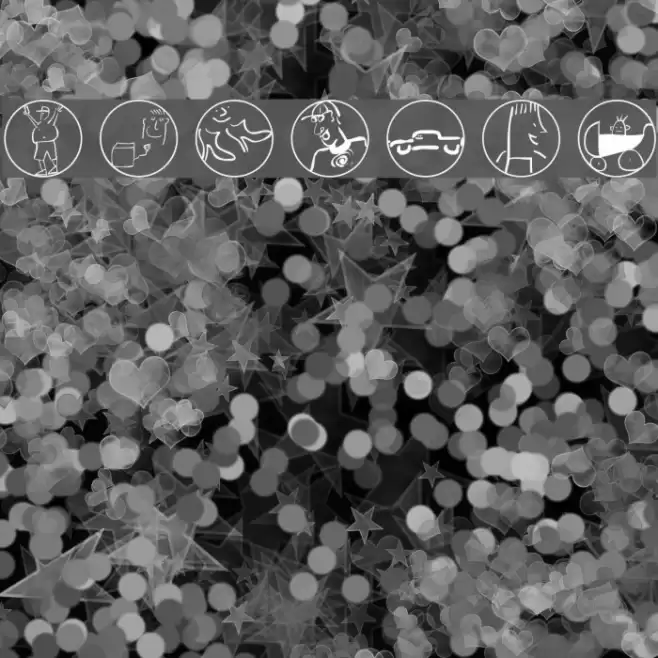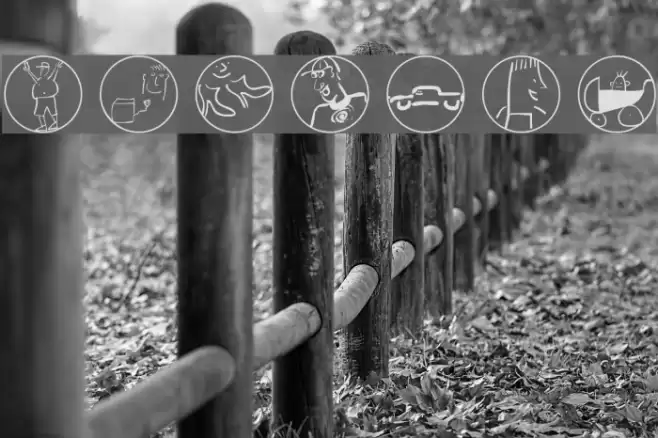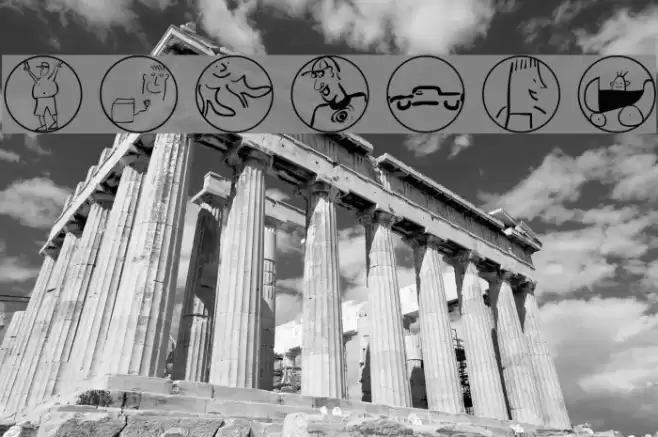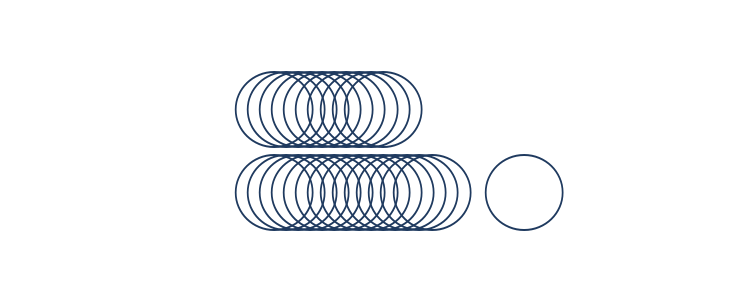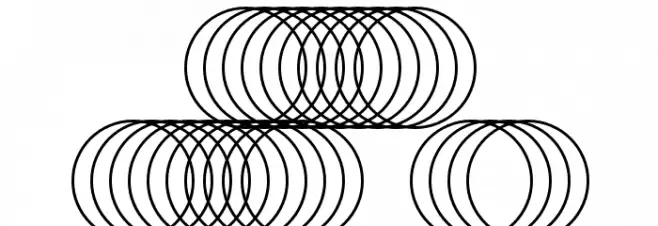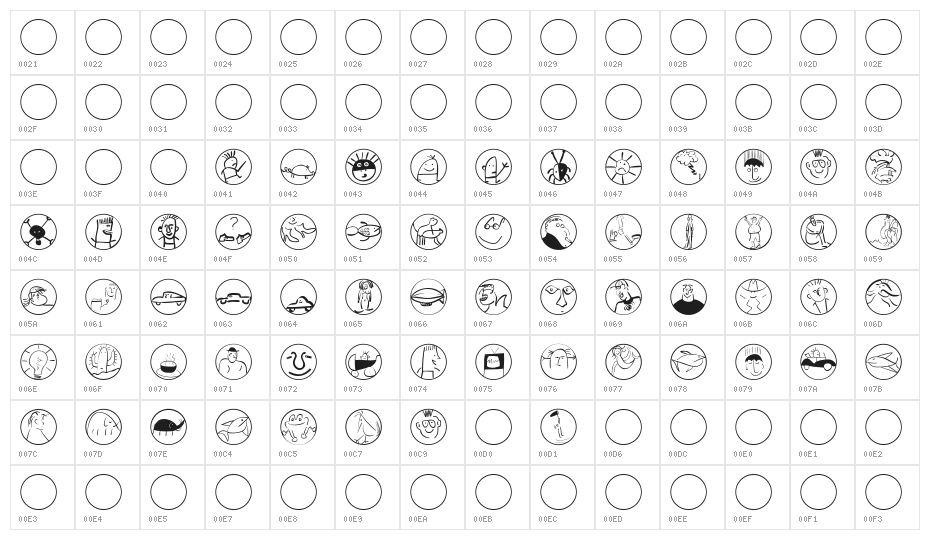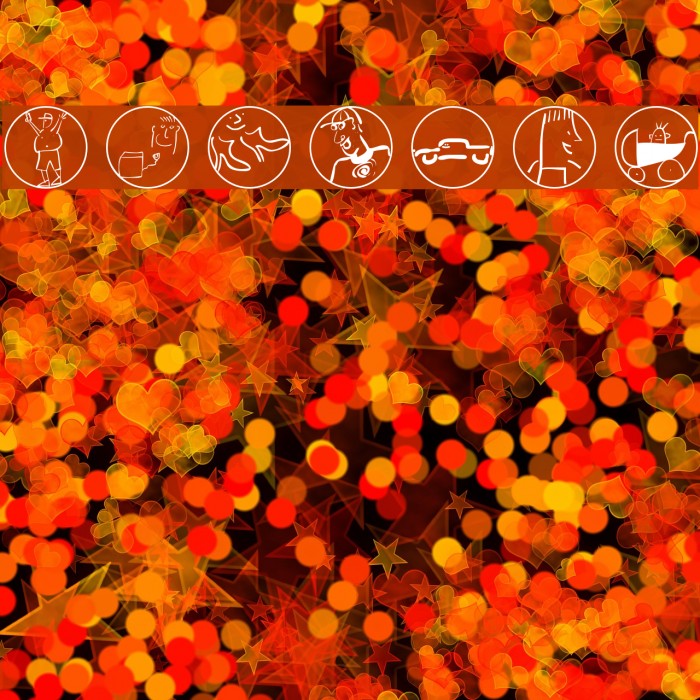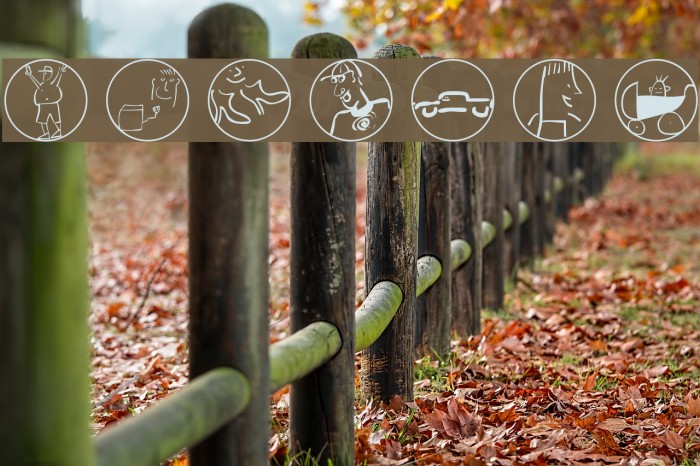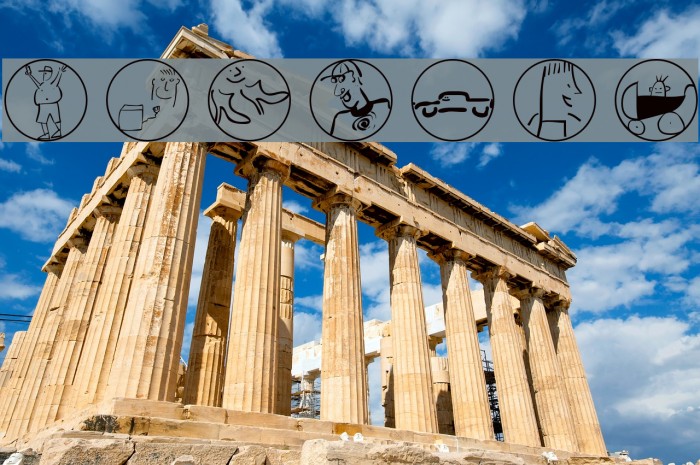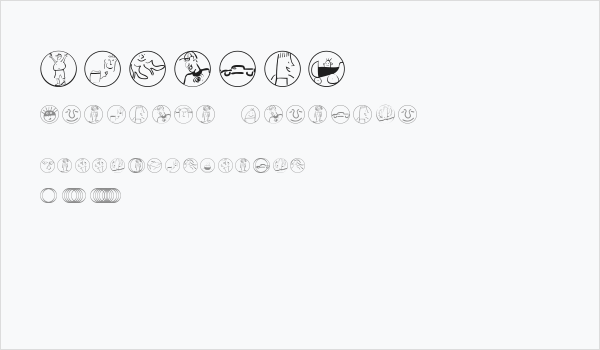
WaPicts Font
WaPicts Description
A playful and whimsical decorative font featuring hand-drawn cartoon faces and objects inside circular outlines for each character. Each glyph is unique, with a sketch-like quality and varying line thickness, giving a lively and informal appearance.
Hand-drawn, cartoonish decorative font with circular character frames from Uncategorized fonts.
- Proposed Projects: Children’s books, playful branding, party invitations, comic strips, educational materials.
- Overall Style: Whimsical, Playful, Hand-drawn, Decorative
- Use Case: Logos, Posters, Headlines, Children’s content